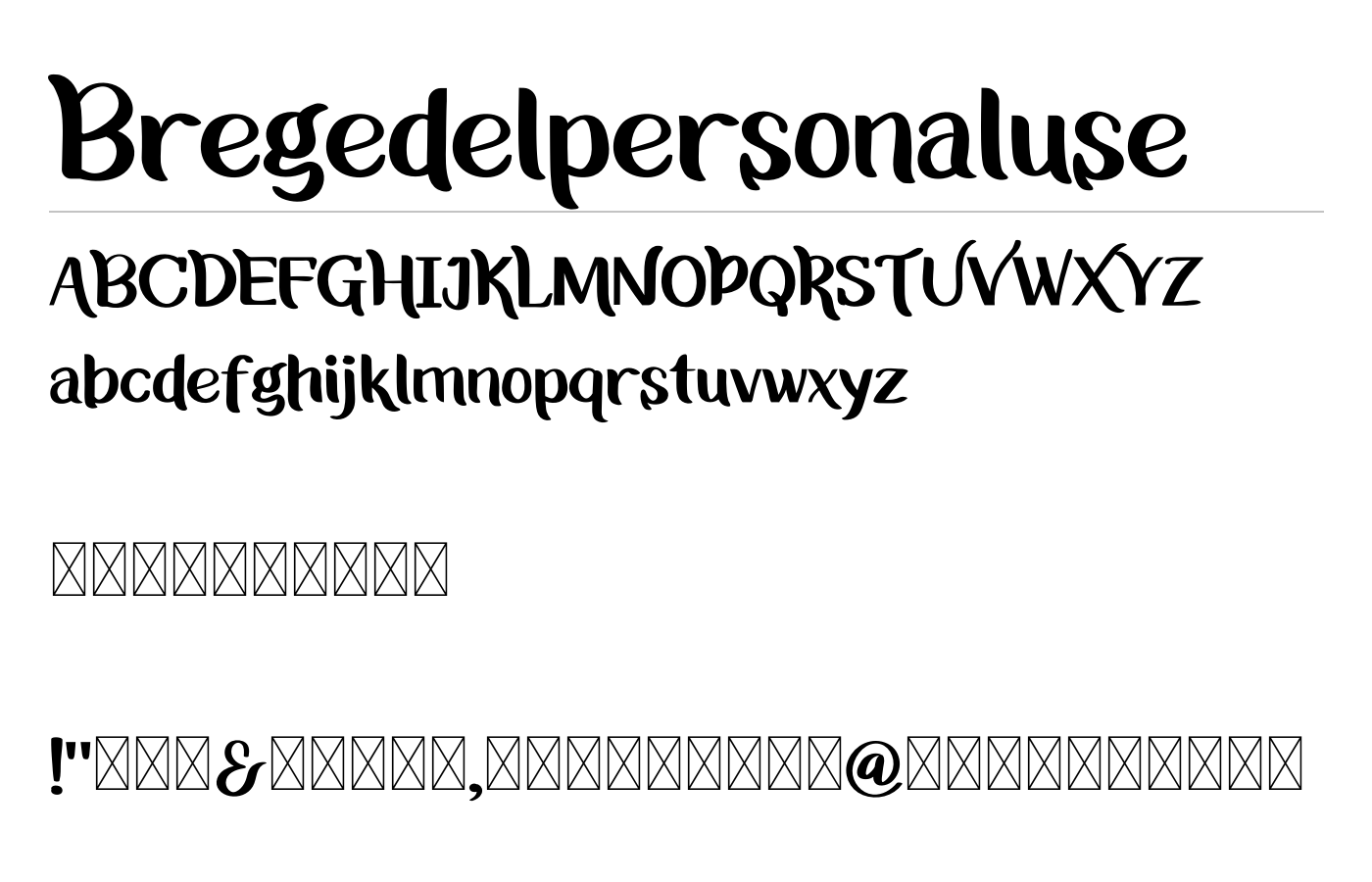
Bregedelpersonaluse is a whimsical serif font with a playful, hand-drawn feel characterized by its moderate weight and slightly condensed letterforms. Featuring soft, curved serifs and unique, quirky details like single-story g and a distinctive ampersand, it brings a friendly and creative personality that works wonderfully for casual branding, children’s books, and decorative headlines. Its charming style adds warmth and a touch of individuality, making it ideal for projects that want to evoke fun, approachability, and artistic flair.
Bregedelpersonaluse Font
About Bregedelpersonaluse Font